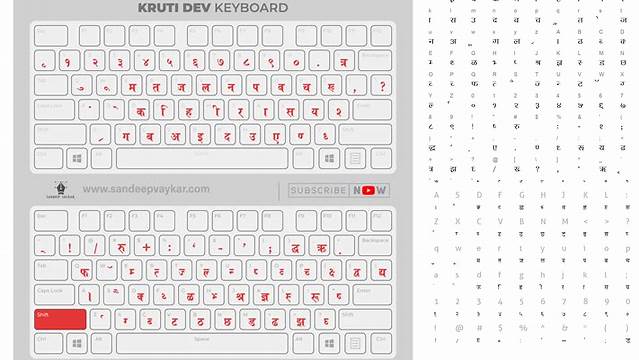
Hey guys! Are you looking for Kruti Dev Marathi fonts? You've come to the right place! Finding the perfect font for your Marathi typing needs can be a bit of a quest, but don't worry, we're here to make it super easy for you. This article will guide you through everything you need to know about Kruti Dev fonts, where to download them in a zip file, and how to use them effectively. Let's dive in!
1. Understanding Kruti Dev Fonts
So, what exactly are Kruti Dev fonts? Well, they are a set of widely used fonts for typing in Marathi and Hindi, especially popular for government and legal documents. These fonts are based on the keyboard layout called 'Remington,' which was common on typewriters. Because of its widespread use in the past, many institutions still prefer or require documents to be in Kruti Dev. This makes having access to these fonts crucial for anyone dealing with Marathi or Hindi typing, especially in professional settings. Understanding the nuances of Kruti Dev is not just about typing; it's about ensuring compatibility and professionalism in your written communication. When you start using Kruti Dev, you're joining a long line of typists who have relied on this font for their important documents.
The importance of Kruti Dev fonts lies in their historical usage and continued relevance. Many older documents, forms, and templates are formatted using Kruti Dev, making it necessary for users to be able to both read and create documents in this font. While newer font technologies exist, Kruti Dev remains a standard in many sectors, particularly in government jobs and legal fields. Learning to use Kruti Dev not only allows you to create new documents but also to access and modify existing ones. For students, professionals, and anyone dealing with official paperwork in Marathi or Hindi, Kruti Dev is an indispensable tool. In short, knowing Kruti Dev is like having a key that unlocks a vast library of important information.
The legacy of Kruti Dev extends back to the era of typewriters when the Remington keyboard layout was the norm. This layout was designed to minimize mechanical clashes between the keys, and Kruti Dev was created to work seamlessly with this layout. As computers became more prevalent, Kruti Dev was adapted for digital use, allowing users to continue typing in the same familiar style. This continuity meant that people who had learned to type on typewriters could easily transition to computers without having to learn a new keyboard layout. This ease of transition contributed to the widespread adoption and continued use of Kruti Dev. Today, even with the availability of more modern fonts and keyboard layouts, Kruti Dev remains a staple for many, ensuring that the legacy of the past continues to influence the present.
3. Finding a Reliable Download Source
Finding a reliable download source for Kruti Dev Marathi fonts is super important. You want to make sure you're downloading from a safe and trustworthy website to avoid any dodgy files or viruses. Look for well-known websites or official sources that offer font downloads. Check for reviews or ratings from other users to see if the site is legit. A good sign is if the website has a clear privacy policy and security measures in place. Don't just download from any random site you find on Google. Take a few extra minutes to ensure you're getting your fonts from a reputable source, and you'll save yourself a lot of potential headaches down the road.
Security should be your top priority when downloading anything online, especially fonts. Fonts can sometimes be disguised as malicious files that can harm your computer or steal your personal information. To protect yourself, always download from trusted sources that have a proven track record of providing safe downloads. Avoid websites that look unprofessional or ask for unnecessary personal information. Before downloading, scan the website for security badges or certificates that indicate it is secure. Additionally, make sure your antivirus software is up-to-date and running. By taking these precautions, you can minimize the risk of downloading harmful files and keep your computer safe.
Official Sources are often the best place to find reliable Kruti Dev font downloads. Look for websites that are affiliated with Marathi language organizations or institutions that specialize in Indian language fonts. These sources are more likely to offer genuine and safe font files. They may also provide additional resources, such as tutorials or support forums, that can help you get the most out of your Kruti Dev fonts. While it may take a bit more effort to find these official sources, the peace of mind that comes with knowing you're downloading from a reputable provider is well worth it. So, take the time to do your research and find a source you can trust.